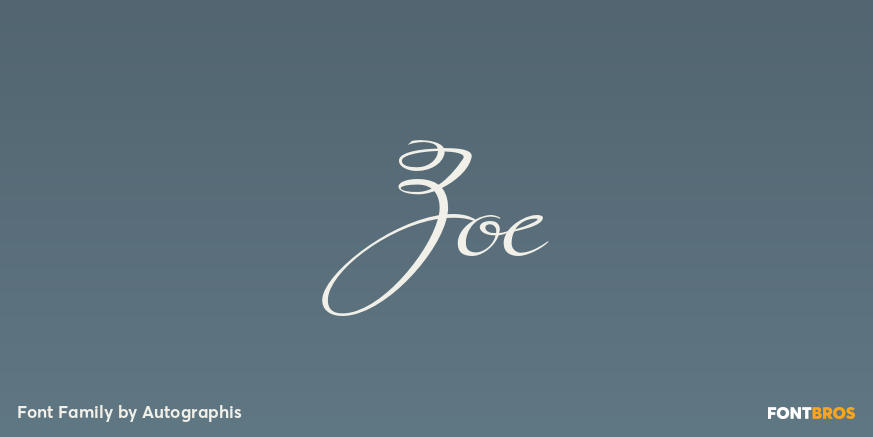
HomeFont BrosScripts: CasualZoe Scripts: CasualScripts: Formal Zoe FacebookXPinterestWhatsApp 1 of 1 About Zoe Zoe is a hand-drawn script that has a very even flow and is readable down to very small sizes. In big sizes it is elegant.  DOWNLOAD NOW People also explored Matamu Font Sandwich Font Nelson Font Magenta Font Rockyoletta Font Mideo Font The Postgates Font Yellow Font Just Saying Font 236 0 TagsZoeZoe Font Previous articleTankedNext articleCorky LEAVE A REPLY Cancel reply Comment: Please enter your comment! Name:* Please enter your name here Email:* You have entered an incorrect email address! Please enter your email address here Website: Save my name, email, and website in this browser for the next time I comment. Personal Use Free Abberancy Personal Use Free Read more about this font Tide Personal Use Free Read more about this font Panaroe Personal Use Free Read more about this font The Fourth Avenue Personal Use Free Read more about this font BLOG How to Install and Use Fonts on Windows, macOS, and Web Projects How to Install and Use Fonts on Windows, macOS, and Web Projects Fonts are a crucial part of design and branding. Whether you’re designing a... Best Fonts for YouTube Videos: Make Your Thumbnails Stand Out Where to Buy American Fonts Online in 2024 How to Cut Any Font on Cricut: Convert a Font to SVG (Free)